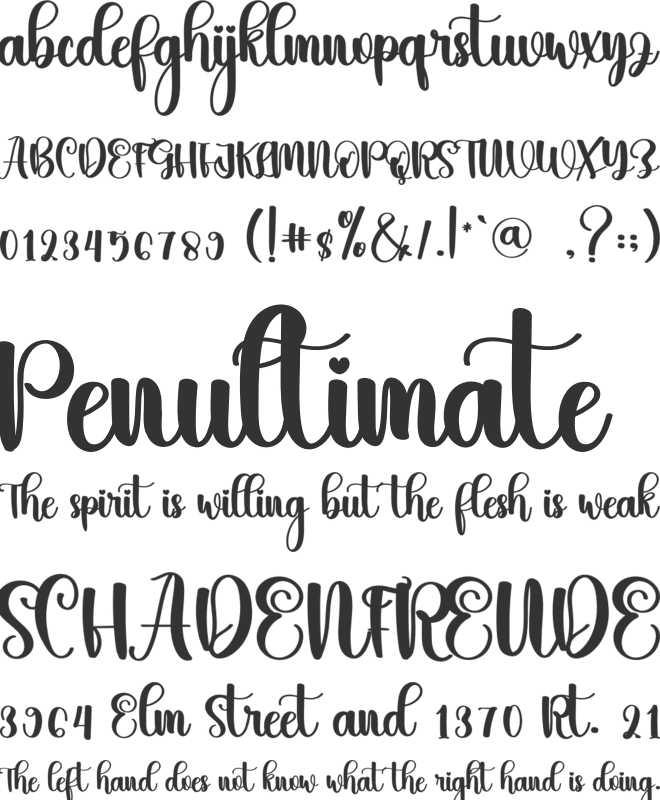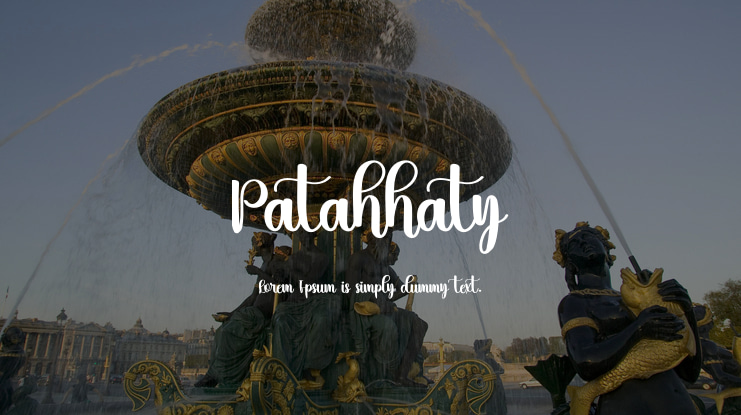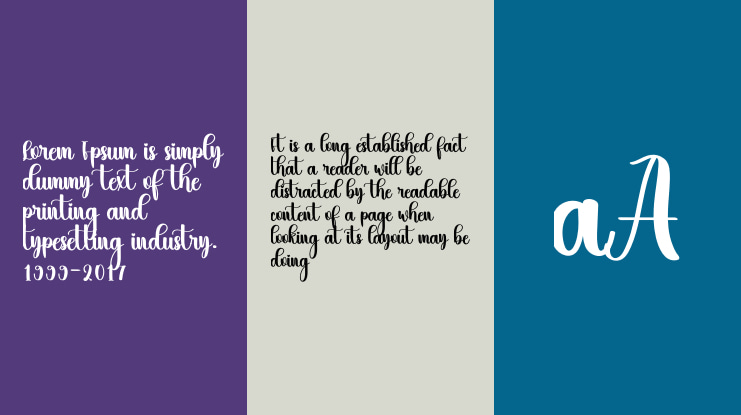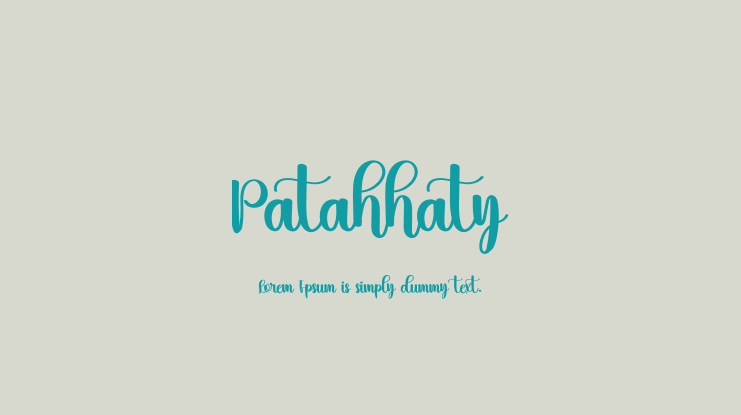
Patahhaty Font
This is a relaxed and beautiful paint brush handwritten font. It can be used for various purposes such as logos, wedding invitations, headings, t-shirts, letterhead, signage, labels, news, posters, badges and so much more.